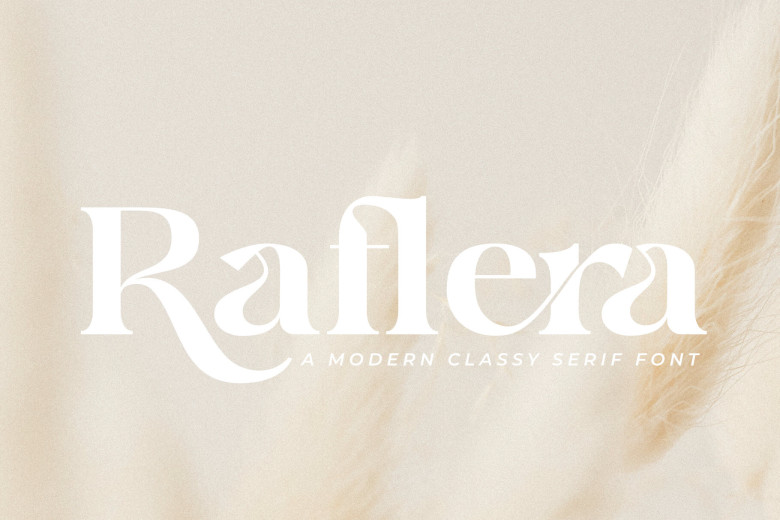
Raflera Font
Raflera is a type of font that engages the naked eye and comes with simplicity and elegance to match the advanced world. In terms of the design concept, it is characterized by slim, high contrast fonts, which, in combination with others, can be used in business cards, invitations, logos, and other creations.
That is why Raflera’s serifs are laconic, its curves are elegant – all this is associated with present-day elegant. Whether you are to tap a modern theme for your design or incorporate an aristocratic feel to your symbol, Raflera is a plus.
Raflera Serif Font